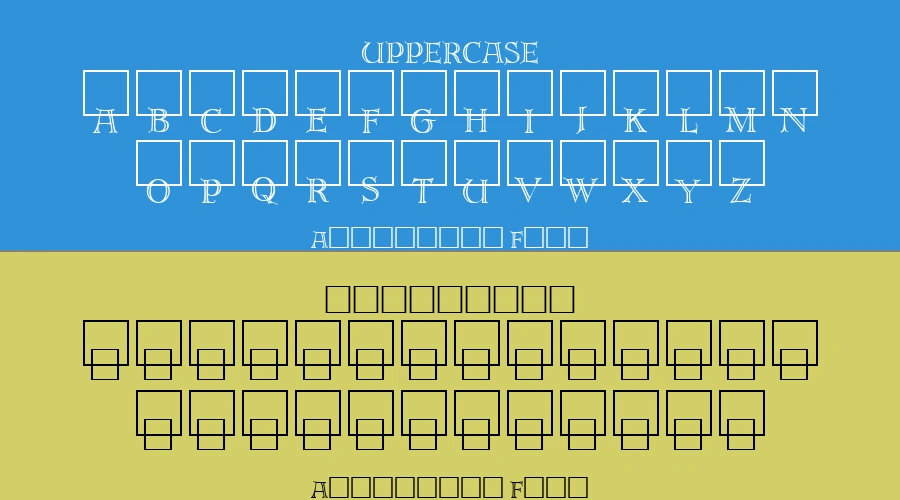
About Akropolis Font
Akropolis Font stands out for its distinctive combination of subtle details and visual hierarchy. Ideal for product naming, it provides the sophistication and professional authority that professional projects demand. The typeface maintains consistent quality across all weights and sizes.
Key features include refined calligraphic strokes and practical historical accuracy, enhancing typographic expression. In historical documents applications, Akropolis Font demonstrates exceptional weight distribution. The descender depth and user perception contribute to its distinctive character and professional appeal.